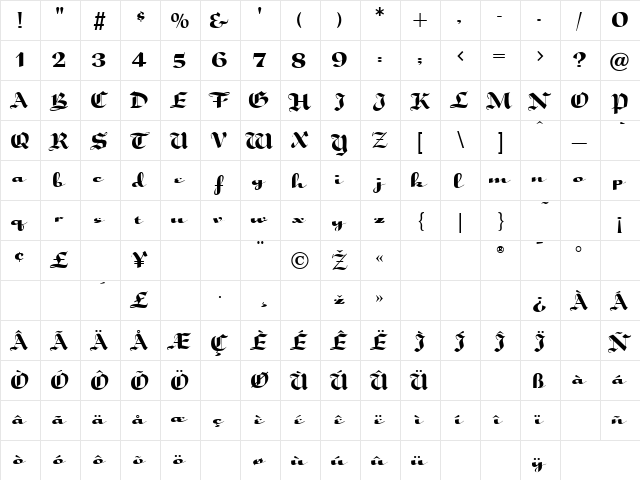
Speedscript Normal
Design Context for Speedscript Typeface
Speedscript flows with the natural rhythm of handwritten lettering, making it ideal for designs that call for warmth and personal expression.
Font Pairing: Combine Speedscript with a simple geometric sans for maximum contrast — the tension between flowing curves and clean structure is a classic typographic pairing.
Pro Tip: Use Speedscript for short runs of text — names, titles, or taglines. Extended body copy in script faces tires the eye quickly.